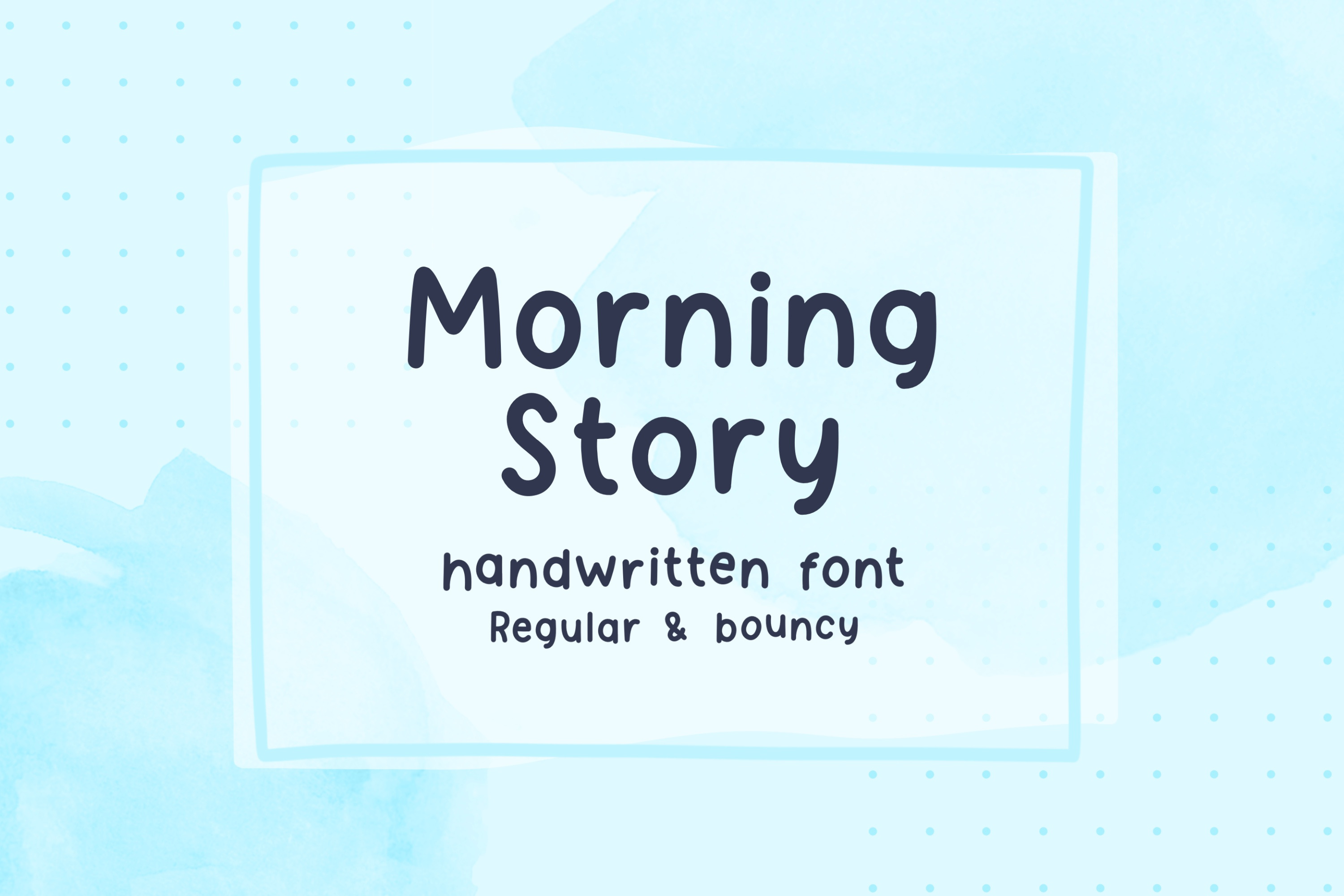
Morning Story cute handwritten font
Morning Story is a simple and cute handwritten font in regular and bouncy version (English only). You can use this font in various projects - blog posts, digital planner, invitations, greeting cards, planners, photo albums, decorations and much more. Thank you :)